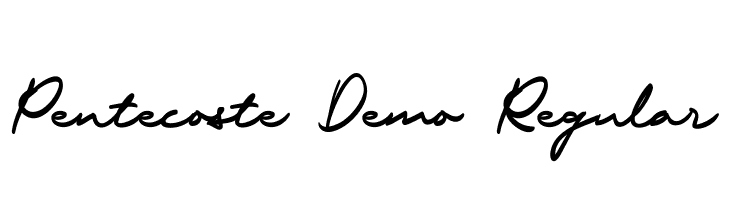
A sophisticated cursive font with elegant, flowing lines.
A dynamic, expressive handwritten font with fluid, connected strokes.
A dynamic, expressive handwritten font with fluid strokes and natural flow.
A delicate, flowing script font with elegant, continuous strokes.